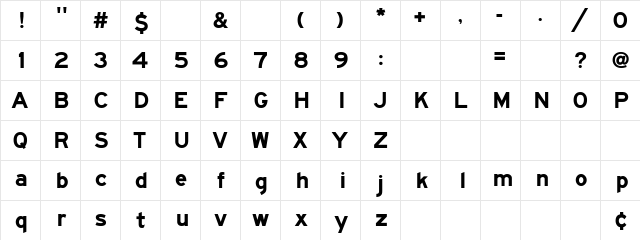
Roadgeek 2000 Series E (Modified) Regular
Design Context for Roadgeek 2000 Series E (Modified) Typeface
Roadgeek 2000 Series E (Modified) is a composed and adaptable typeface that performs quietly and consistently across a wide range of design contexts.